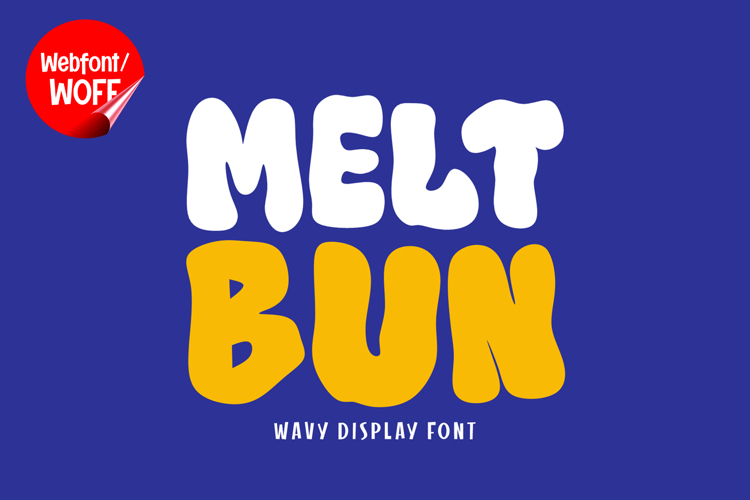
Meltbun | Retro Wave Display Webfont for Modern Websites
Meltbun is a retro wave display webfont designed to bring nostalgic vibes and vibrant energy into modern website design. Inspired by classic retro aesthetics and synthwave visuals, this font features bold shapes and stylish curves that create a striking and memorable appearance. It is an excellent choice for projects that aim to capture a vintage yet futuristic feel with a modern digital touch.
Meltbun includes a complete set of uppercase characters designed with retro-inspired forms. The letterforms feature bold strokes and smooth curves that reflect the iconic style of retro wave design. These shapes are ideal for headlines, banners, hero sections, and featured content where strong visual impact is essential. The nostalgic character helps create a unique and recognizable identity.
In addition to letters, the font includes numbers and punctuation, allowing flexible usage across various parts of a website. It works well for promotional content, product displays, event announcements, and call-to-action sections. Each character maintains a consistent retro wave style, ensuring a cohesive and unified visual identity throughout the layout.
With multilingual support, Meltbun includes a wide range of accented characters, making it suitable for international websites and global audiences. This allows content to be displayed clearly across different languages while preserving the retro-inspired aesthetic.
The retro wave display style of Meltbun makes it especially suitable for creative websites, music platforms, fashion brands, digital portfolios, and entertainment projects. Its nostalgic yet modern look adds personality and energy, helping websites stand out in visually competitive environments. The retro influence also enhances branding that focuses on creativity and bold visual storytelling.
Despite its decorative and stylized appearance, Meltbun is designed with readability in mind. The spacing and proportions of each character are carefully balanced to ensure clarity, particularly in display sizes. This makes it effective for impactful headings and short content elements where both style and usability are important.
Meltbun is a webfont that combines retro inspiration with modern digital performance. Its bold shapes, smooth curves, and vibrant character create a distinctive typographic presence that enhances website design. For projects that require a nostalgic, stylish, and visually engaging font, Meltbun offers a powerful and creative solution.